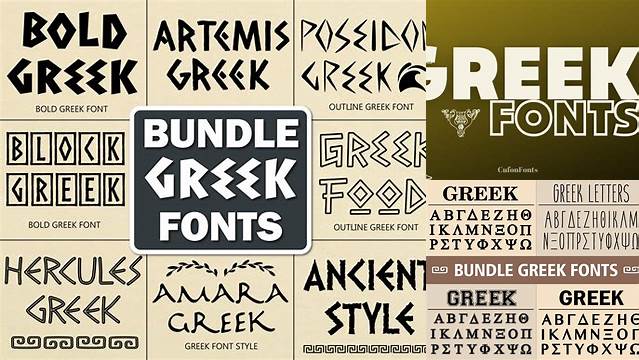
Greek Fonts: Free Downloads For Designers
Hey guys! Ever needed some awesome Greek fonts for your designs but didn't want to spend a fortune? You're in the right place! This article is all about free greek fonts, where to find them, and how to use them to make your projects pop. Let's dive in!
Understanding Greek Fonts
Before we jump into the downloads, let's understand what makes greek fonts special. They're not just about the Greek alphabet; they carry a certain aesthetic and historical weight that can add depth to your designs. Think ancient history, mythology, and a touch of sophistication. Using the right greek font can instantly elevate your work. When choosing a font, consider the project's tone. Is it formal and academic, or playful and modern? Different fonts convey different feelings. For instance, a serif font might be perfect for a classic, historical theme, while a sans-serif font could work better for a contemporary design. Also, pay attention to the font's readability. A decorative font might look stunning, but if it's hard to read, it won't be effective. Ensure the font is clear and legible, especially for body text or smaller sizes. Experiment with different fonts and see how they look in various contexts. Try them out in headings, body text, and even logos to see which ones fit your needs the best. Remember, the goal is to enhance your design, not to distract from it. So, take your time and choose wisely.
Using Greek Fonts in Design Projects
Now for the fun part! Using your new greek fonts in your design projects. Think about where the greek font's unique style will shine. Logos, posters, and website headers are great places to start. Remember, less is often more. Don't overuse greek fonts, or they might lose their impact. Combine them with simpler fonts for a balanced look. When using a greek font in a logo, consider how it represents the brand. Does it convey the right message? Is it memorable and unique? A well-chosen greek font can add a touch of elegance and sophistication to a logo, making it stand out from the competition. In posters, use greek fonts for headings or titles to grab attention. Pair them with readable body text to ensure the message is clear. Experiment with different sizes and weights to create visual hierarchy and guide the viewer's eye. For website headers, a greek font can add a touch of personality and style. Just make sure it's legible and doesn't slow down the page load time. Optimize the font for web use and consider using a font service like Google Fonts to ensure it's delivered efficiently. Remember, the goal is to enhance the overall design, not to distract from it. Choose greek fonts that complement the other elements and create a cohesive and visually appealing look. And most importantly, have fun and experiment with different combinations to find what works best for you!
Best Greek Fonts for Logos
When designing logos, the choice of greek font is crucial. You want something that's both visually appealing and reflects the brand's identity. Some great options include classic serif fonts like "Garamond" or "Times New Roman", which convey a sense of tradition and elegance. For a more modern look, consider sans-serif fonts like "Helvetica" or "Arial". These fonts are clean, simple, and versatile, making them suitable for a wide range of brands. If you're looking for something more unique, explore decorative greek fonts that capture the essence of Greek culture, such as those inspired by ancient inscriptions or pottery. Just make sure the font is legible and scalable, so it looks good at both small and large sizes. Also, consider the overall aesthetic of the logo. Does the greek font complement the other elements, such as the icon or color scheme? A well-designed logo should be visually balanced and harmonious, with all elements working together to create a cohesive and memorable image. Don't be afraid to experiment with different greek fonts and combinations to find the perfect fit. Get feedback from others and refine your design until it's just right. Remember, a logo is a crucial part of a brand's identity, so it's worth investing the time and effort to get it right.
Greek Fonts for Website Design
For website design, readability is key. Choose greek fonts that are easy to read on screens, even at smaller sizes. Sans-serif fonts like "Open Sans", "Roboto", and "Lato" are popular choices for body text because they're clean, modern, and highly legible. For headings, you can use slightly more decorative greek fonts to add visual interest, but make sure they're still easy to read. Consider the overall tone and style of the website when choosing greek fonts. Does it match the brand's identity and appeal to the target audience? A formal website might benefit from a classic serif font, while a more casual website could use a playful sans-serif font. Also, pay attention to font pairing. Choose greek fonts that complement each other and create a harmonious visual experience. A good rule of thumb is to pair a serif font with a sans-serif font, or to use different weights and styles from the same font family. Optimize the greek fonts for web use to ensure they load quickly and display correctly on different devices and browsers. Use a font service like Google Fonts or Adobe Fonts to deliver the greek fonts efficiently, and consider using font formats like WOFF and WOFF2, which are optimized for web performance. Remember, the goal is to create a website that is both visually appealing and user-friendly. Choose greek fonts that enhance the overall design and make it easy for visitors to read and navigate the content.
Using Greek Fonts in Mobile Apps
When designing mobile apps, consider the small screen size and the need for clear, legible greek fonts. Choose greek fonts that are optimized for mobile devices and display well on both iOS and Android platforms. Sans-serif fonts like "San Francisco" (for iOS) and "Roboto" (for Android) are popular choices because they're clean, modern, and easy to read. For headings, you can use slightly more decorative greek fonts to add visual interest, but make sure they're still legible and don't take up too much space. Consider the overall design of the app when choosing greek fonts. Does it match the brand's identity and appeal to the target audience? A formal app might benefit from a classic serif font, while a more casual app could use a playful sans-serif font. Also, pay attention to font size and spacing. Make sure the greek fonts are large enough to read comfortably on small screens, and adjust the line height and letter spacing to improve readability. Optimize the greek fonts for mobile use to ensure they load quickly and don't consume too much bandwidth. Use a font service like Google Fonts or Adobe Fonts to deliver the greek fonts efficiently, and consider using font formats like WOFF and WOFF2, which are optimized for mobile performance. Remember, the goal is to create a mobile app that is both visually appealing and user-friendly. Choose greek fonts that enhance the overall design and make it easy for users to read and interact with the content.
Pairing Greek Fonts with Other Fonts
Font pairing is an art. The right combination can make your design sing, while the wrong one can make it clash. When pairing greek fonts with other fonts, start by considering the overall tone and style of your project. Are you going for a classic and elegant look, or something more modern and playful? A good rule of thumb is to pair a serif font with a sans-serif font. For example, you could pair a classic serif font like "Garamond" with a clean sans-serif font like "Helvetica". This creates a nice contrast and makes the design more visually interesting. Alternatively, you could use different weights and styles from the same font family. For example, you could use a bold weight for headings and a regular weight for body text. This creates a cohesive and harmonious look. When choosing fonts to pair with greek fonts, consider their x-height, which is the height of the lowercase letters. Fonts with similar x-heights tend to pair well together. Also, pay attention to the spacing between letters and lines. Adjust the kerning and leading to improve readability and create a more visually appealing design. Experiment with different combinations and see what works best for your project. Get feedback from others and refine your design until it's just right. Remember, the goal is to create a design that is both visually appealing and easy to read. Choose greek fonts that complement each other and create a harmonious and balanced look.
Free Greek Fonts for Commercial Use
Finding free greek fonts for commercial use can be a lifesaver, especially if you're on a tight budget. However, it's important to be careful and make sure you have the right to use the greek font for your intended purpose. Always check the license agreement before using any font, especially for commercial projects. Some greek fonts may be free for personal use but require a license for commercial use. Others may be completely free to use for any purpose, including commercial projects. Websites like Google Fonts and Font Squirrel offer a wide selection of greek fonts that are free for commercial use. These greek fonts are typically licensed under the SIL Open Font License (OFL), which allows you to use, modify, and distribute the greek fonts for any purpose, including commercial projects. However, it's still important to read the license agreement carefully to make sure you understand the terms and conditions. When in doubt, it's always best to contact the greek font designer or distributor to clarify the license terms. Don't assume that a greek font is free for commercial use just because it's available for free download. Always do your research and make sure you have the right to use the greek font for your intended purpose. Using a greek font without the proper license can result in legal consequences, so it's better to be safe than sorry. Remember, there are plenty of high-quality greek fonts available for free commercial use, so there's no need to take risks.
Free Greek Fonts for Mac
Finding free greek fonts for your Mac is easier than you might think, thanks to a variety of resources that offer high-quality typography without the cost. Google Fonts is an excellent starting point, as it provides a wide selection of greek fonts that are open source and ready to use in your projects. Simply download the greek fonts you like and install them using Font Book, which comes standard on macOS. Font Squirrel is another great option, offering greek fonts that are free for commercial use, ensuring you can use them in both personal and professional projects without worrying about licensing issues. DaFont is also a popular choice, but always double-check the license before using any greek font commercially. When selecting greek fonts for your Mac, consider the overall style and readability. Choose greek fonts that are clear and easy to read, especially if you're using them for body text or smaller sizes. For headings and display purposes, you can experiment with more decorative greek fonts, but make sure they still complement your design. To install a greek font on your Mac, simply double-click the greek font file to open it in Font Book, then click the